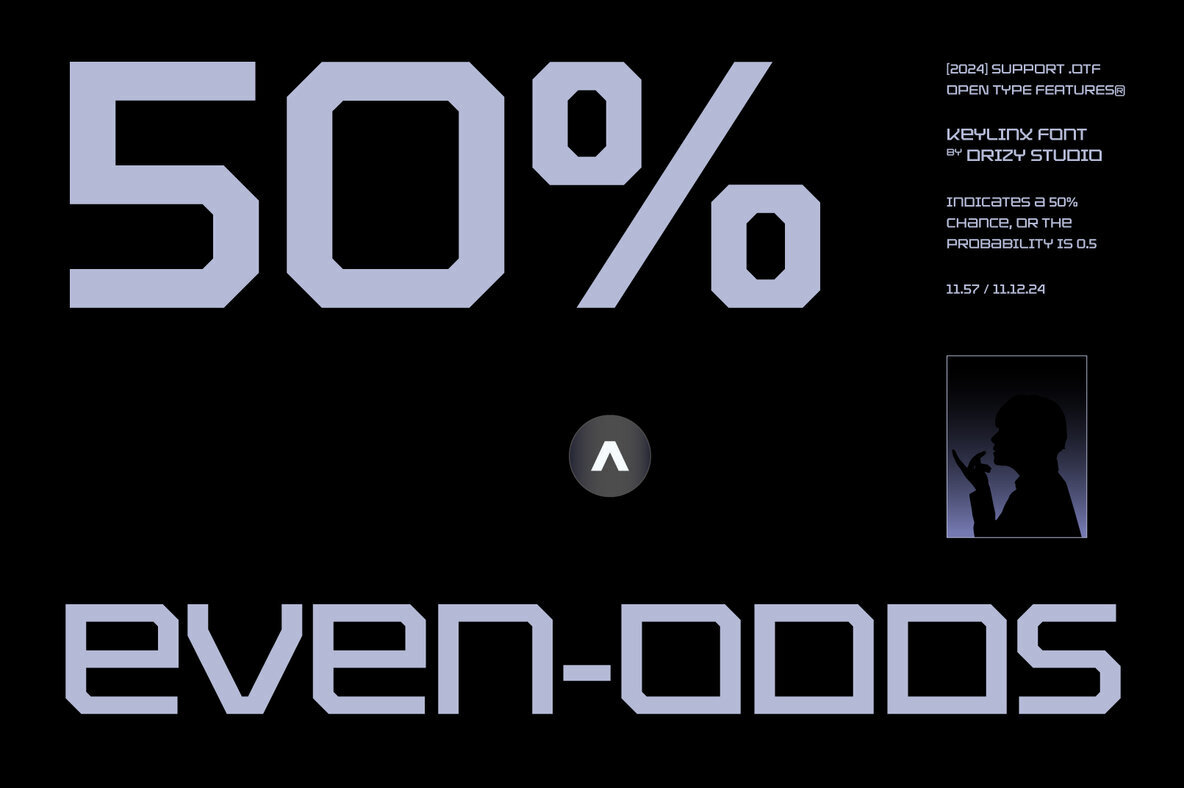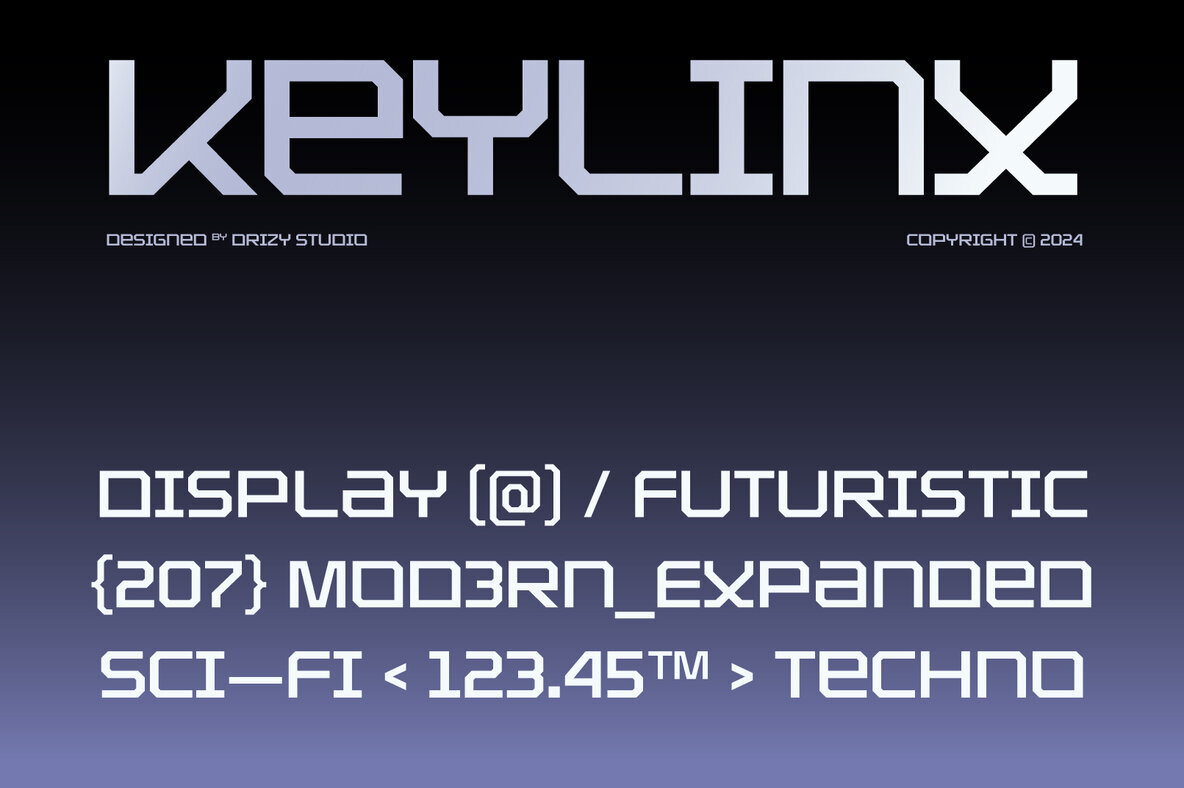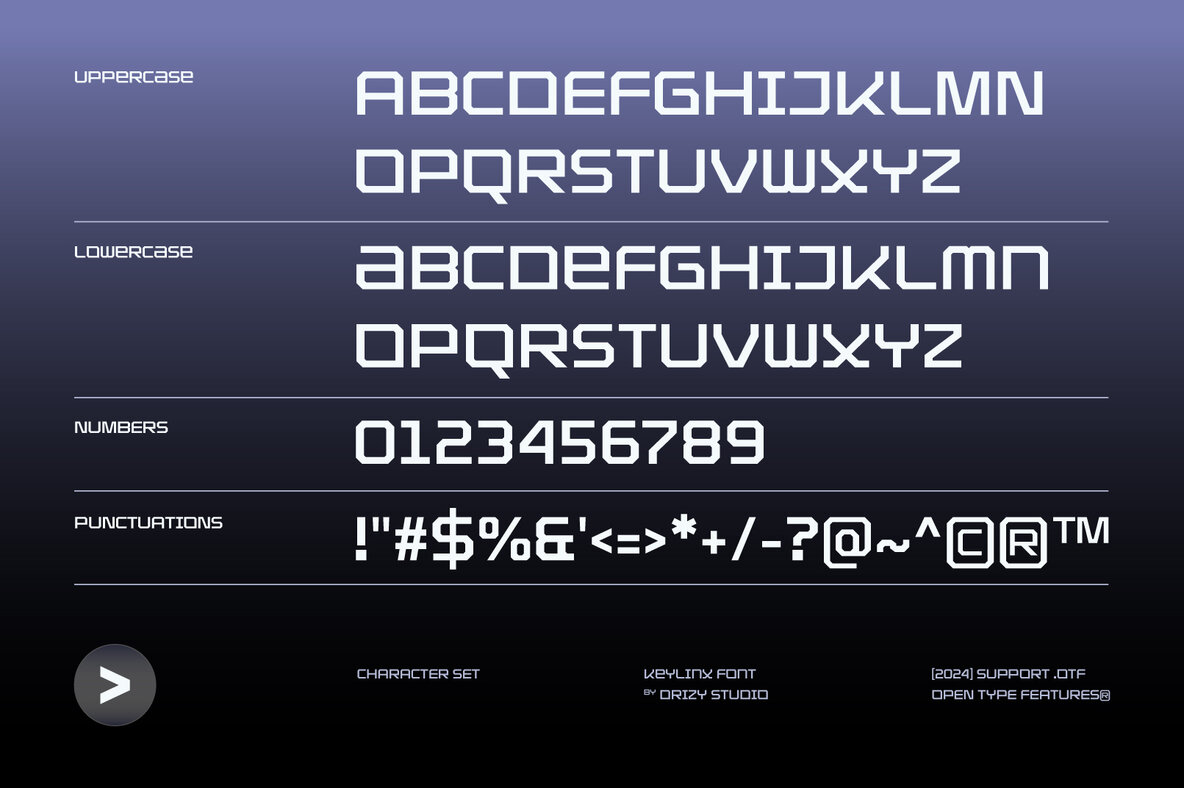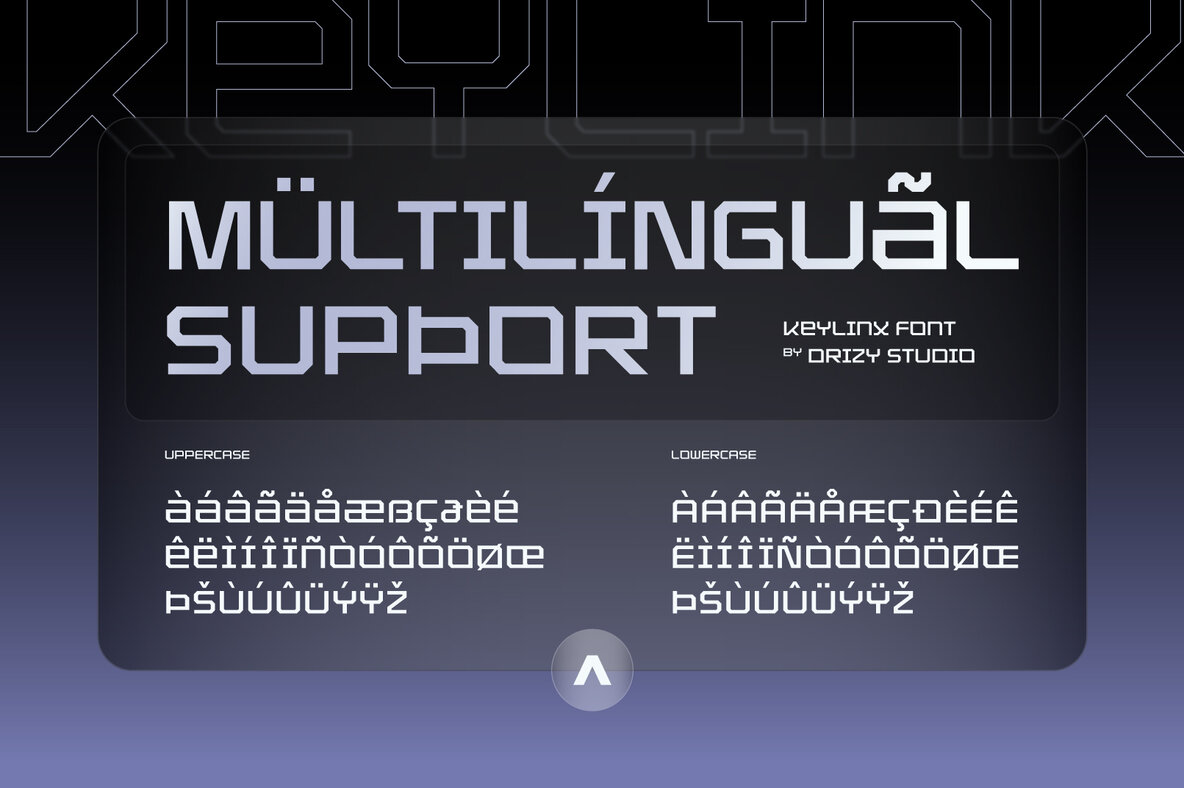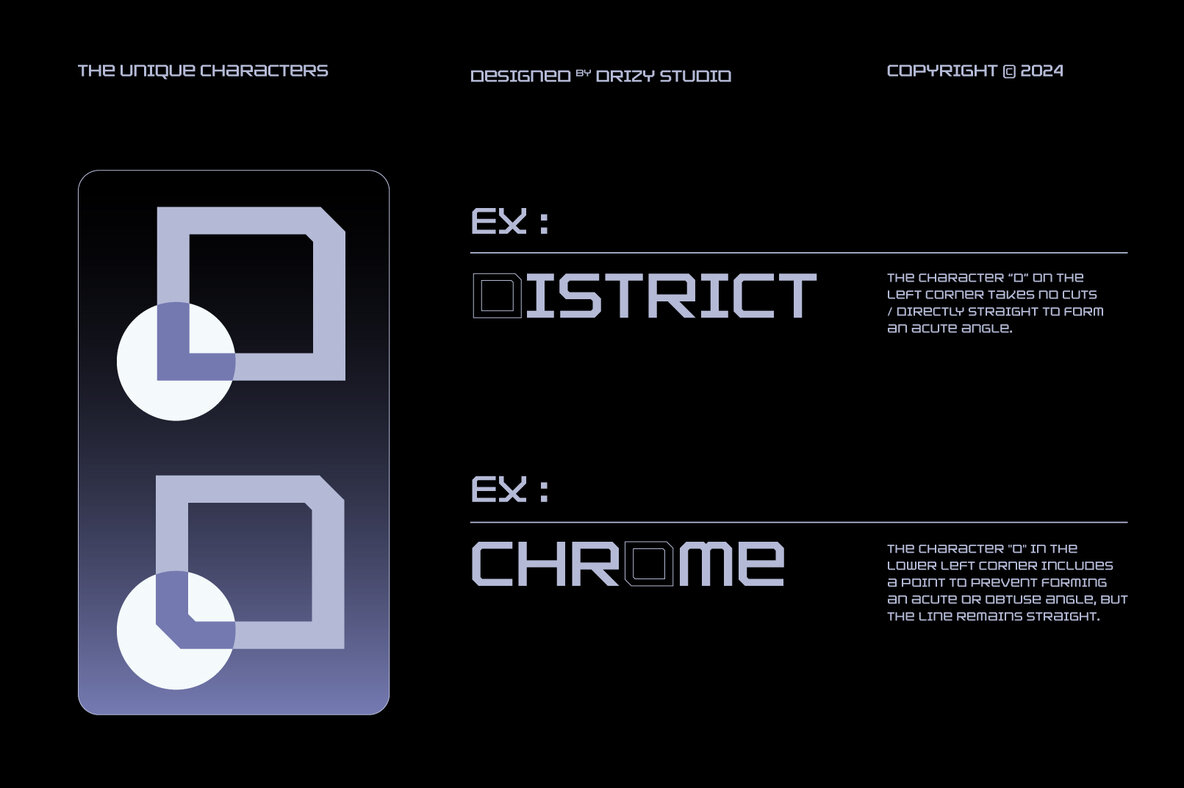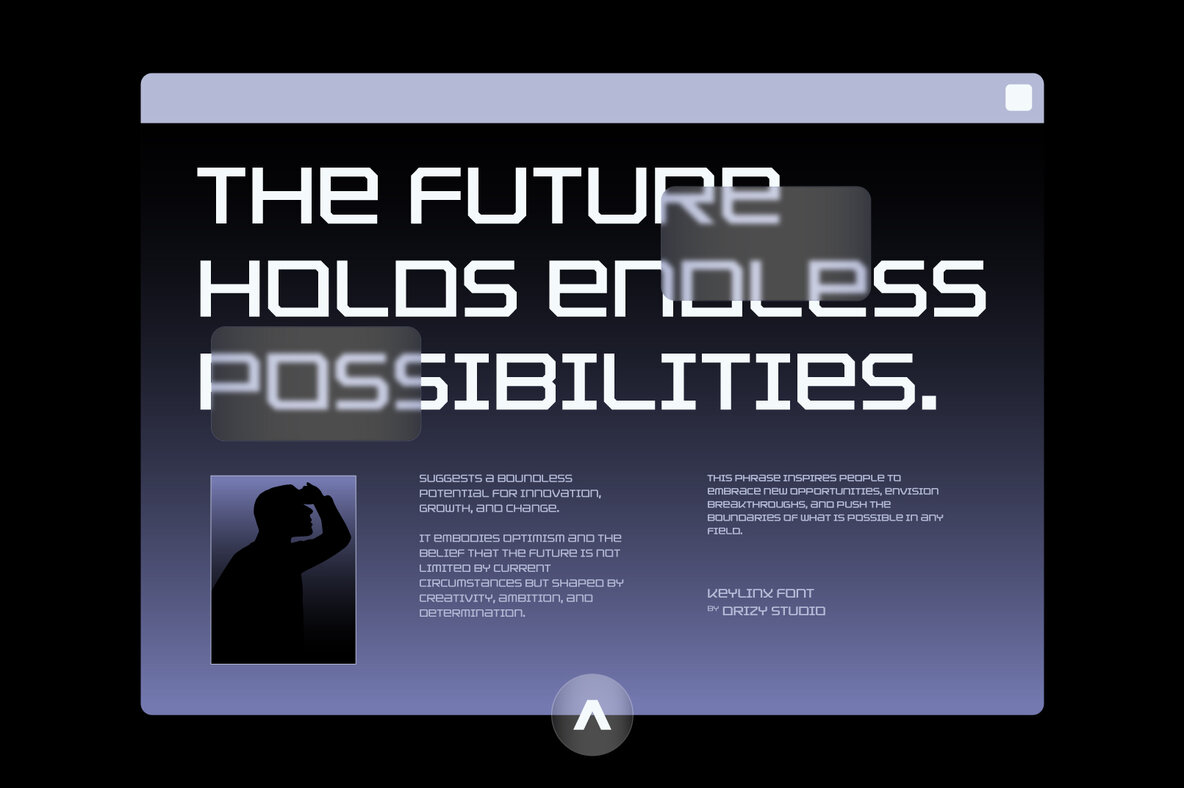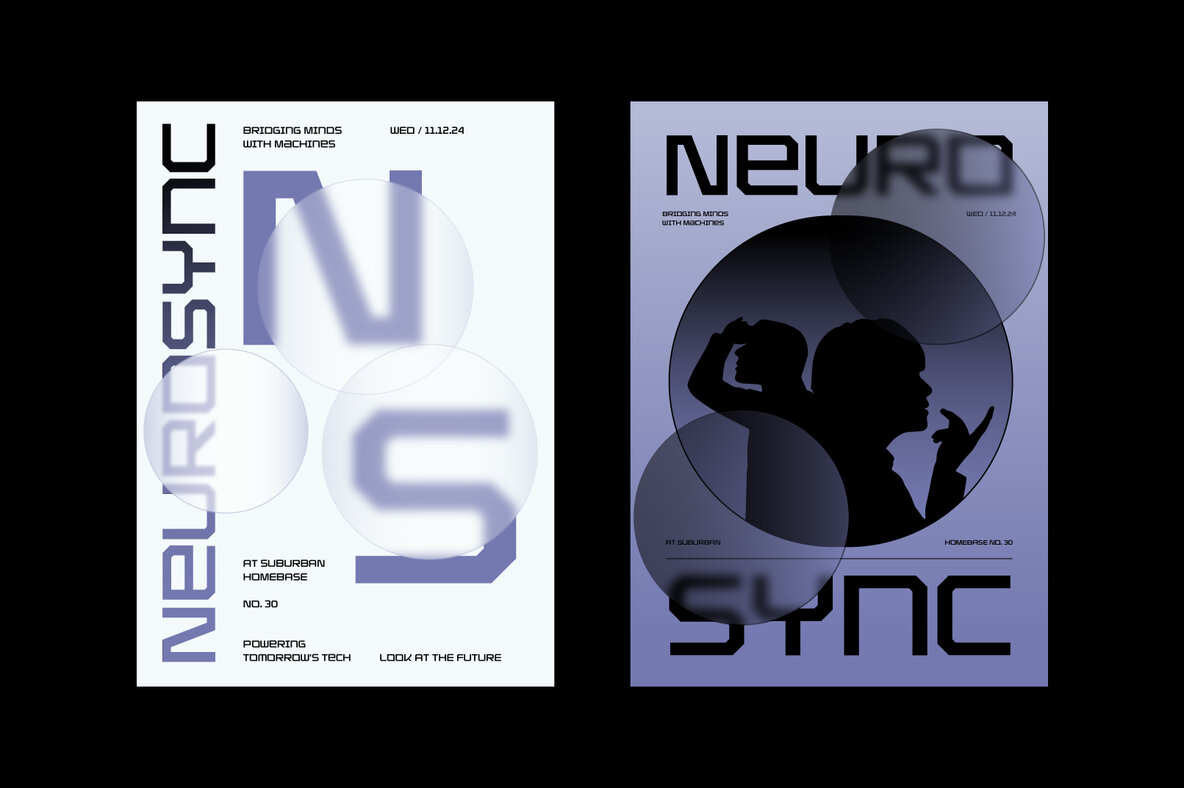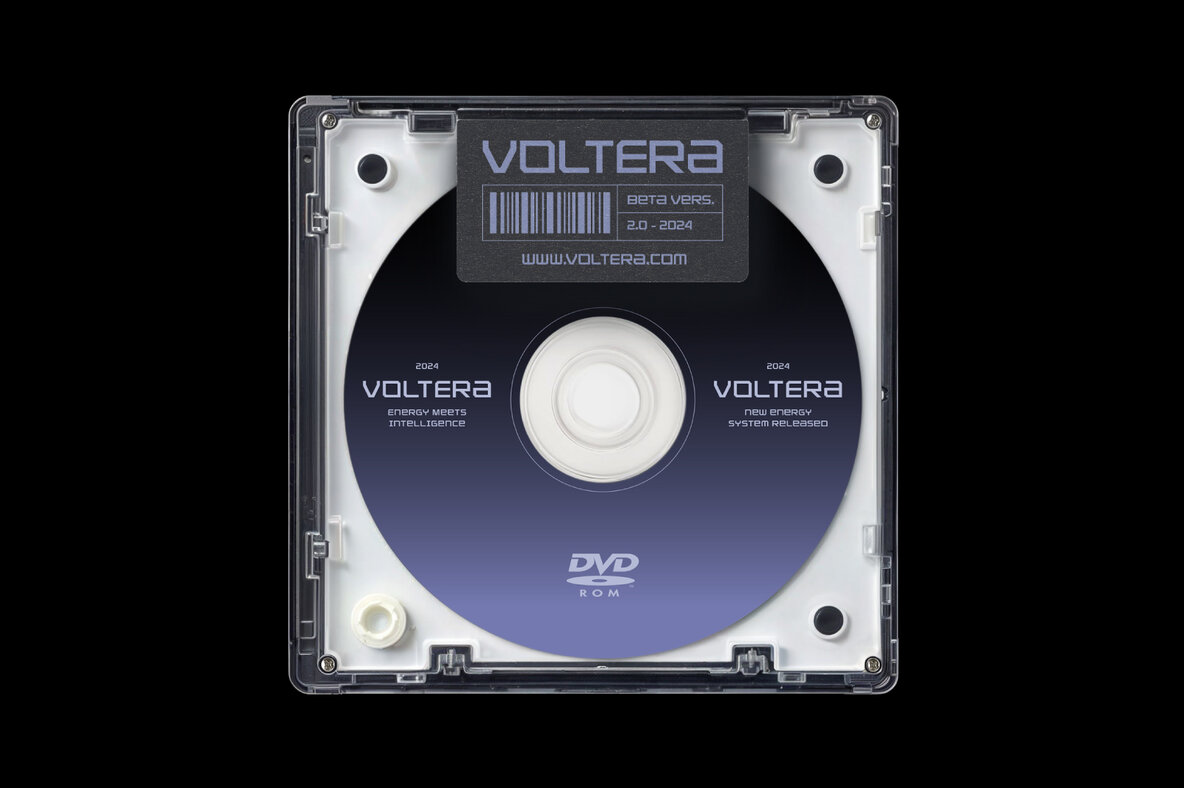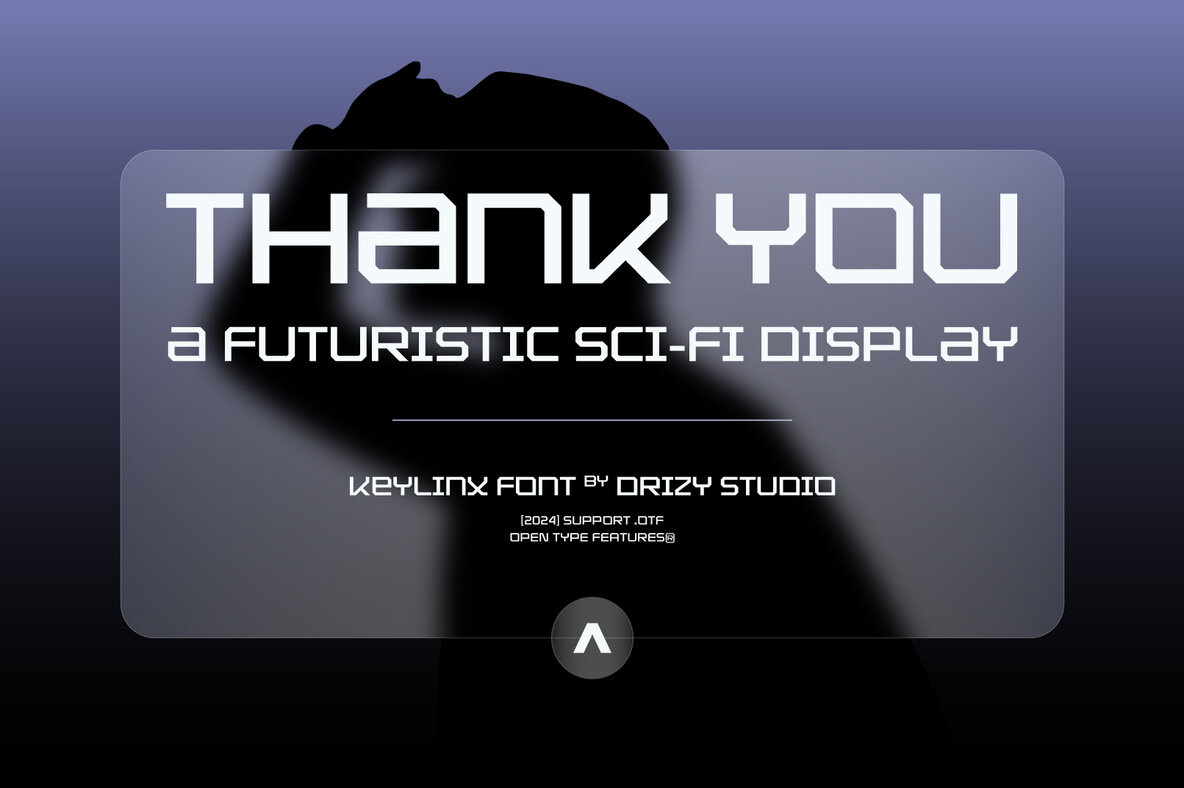
Keylinx Font
Keylinx Regular
Keylinx is a sleek and sophisticated futuristic font crafted for clean and modern design. With its sharp edges and seamless curves, Keylinx offers a cutting-edge aesthetic ideal for UI/UX design, tech-inspired visual identities, and high-impact digital projects. Designed to captivate and communicate clarity, it combines functionality with style, making it a perfect choice for logos, app interfaces, and branding that require a forward-thinking look.
Keylinx features a comprehensive character set including both uppercase and lowercase letters, punctuation, numbers, and multilingual support. This versatility makes it suitable for a wide range of creative applications, enhancing your design projects with its innovative elegance. Whether you're working on a tech-driven project or aiming for a modern and clean visual impact, Keylinx provides the essential elements to make your designs stand out.